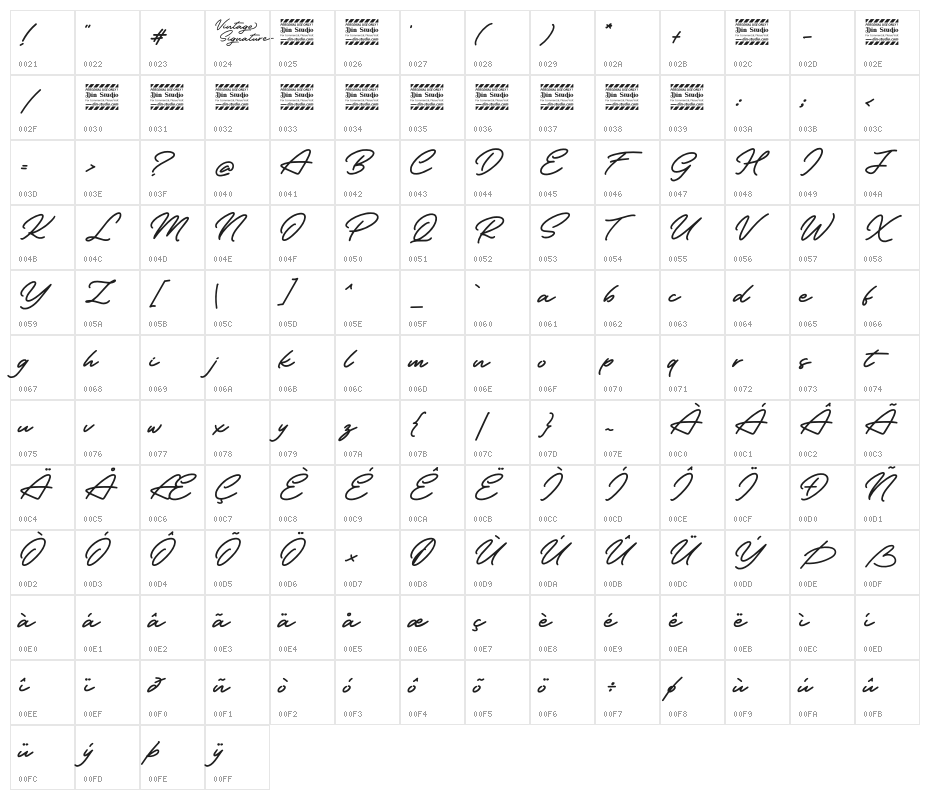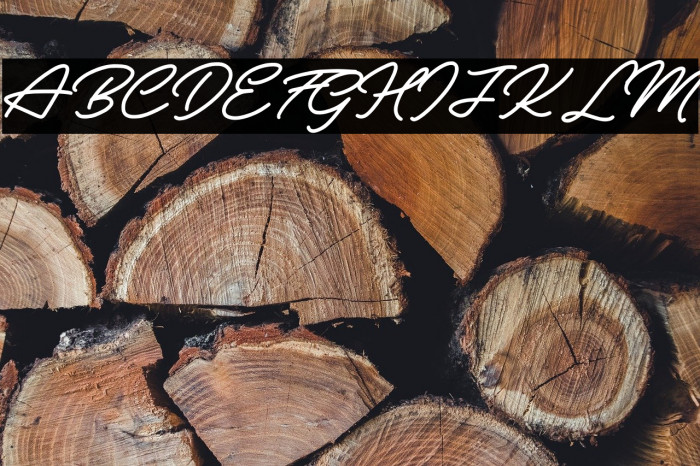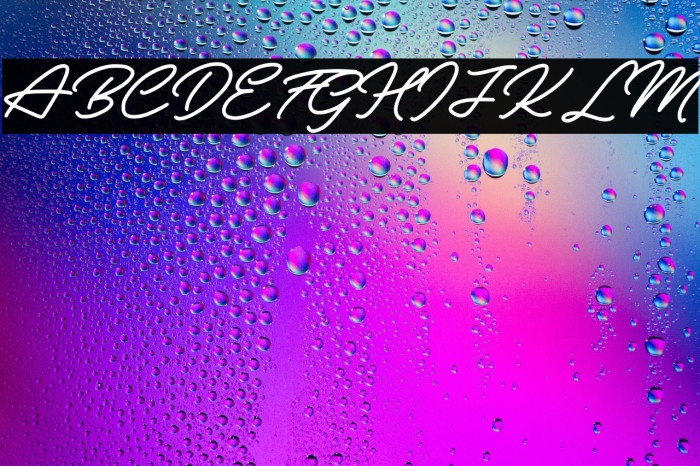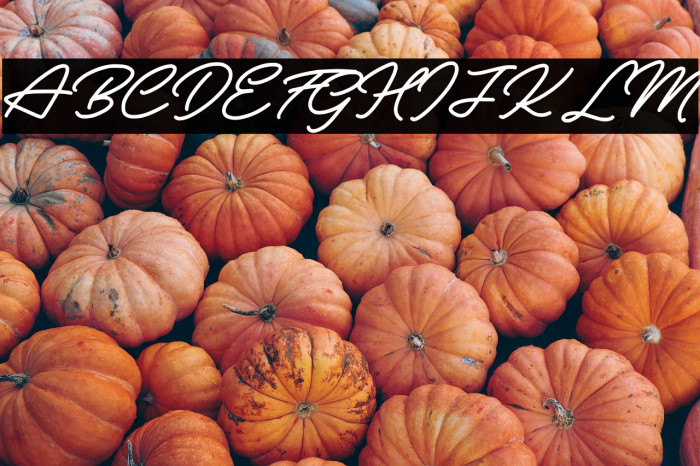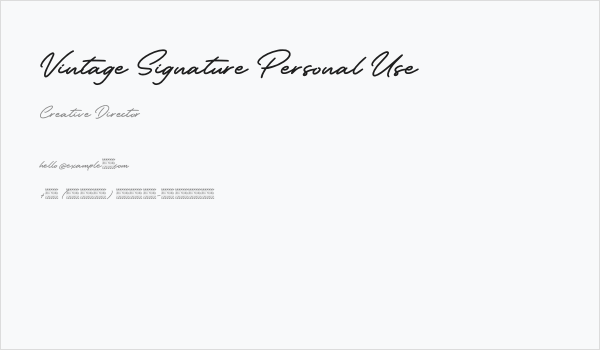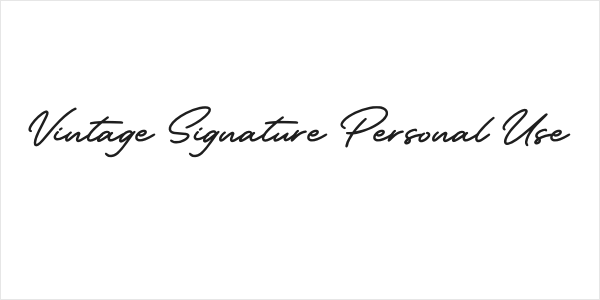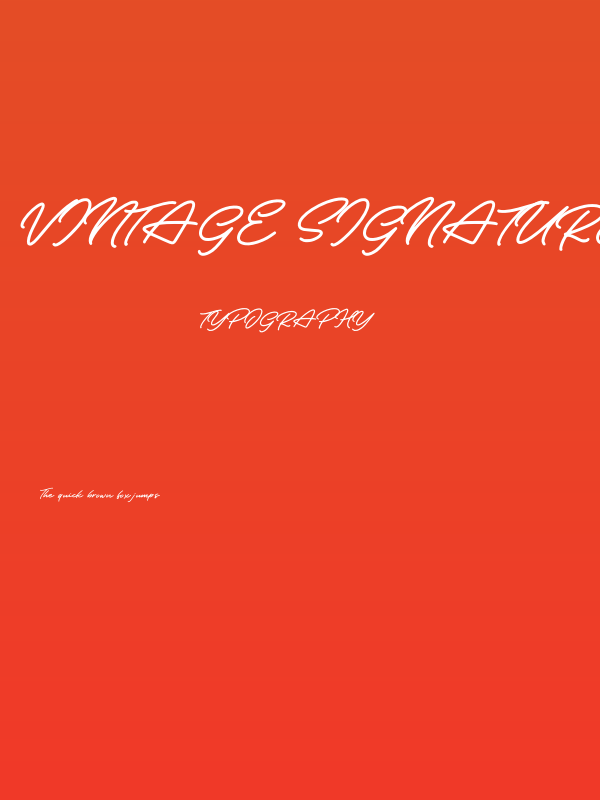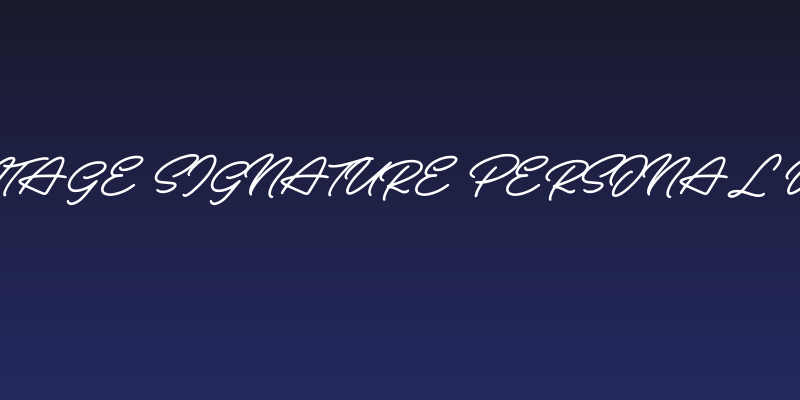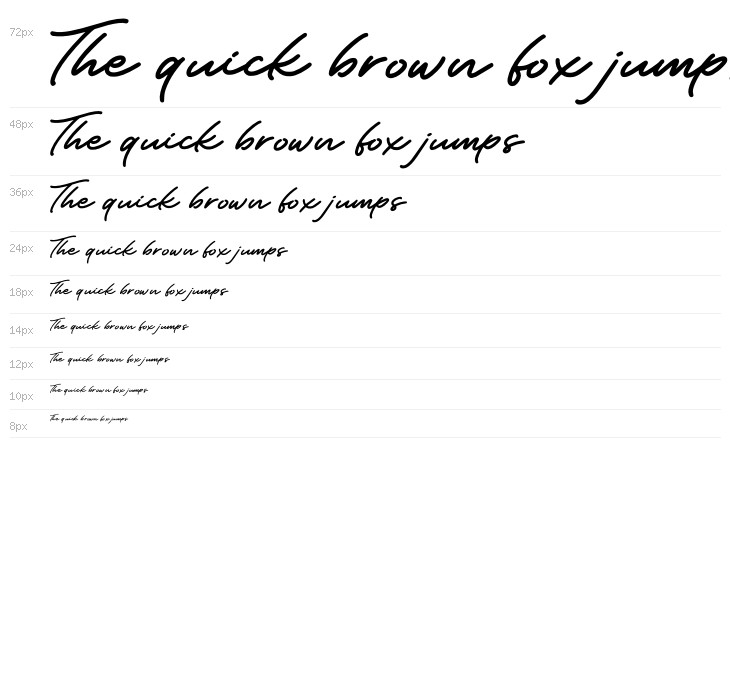
Vintage Signature Personal Use Font
Vintage Signature Personal Use Description
This font exudes a classic and elegant handwritten style, reminiscent of a vintage signature. The letters are gracefully connected, with smooth and flowing strokes that give it a personal and sophisticated touch. The uppercase letters are slightly more elaborate, featuring gentle curves and loops, while the lowercase letters maintain a consistent and harmonious flow. The overall appearance is both stylish and timeless, making it suitable for projects that require a touch of elegance and class. The font's design is perfect for creating a sense of personal touch and authenticity.
| Proposed Projects | Ideal for wedding invitations, personal branding, logo design, and elegant stationery. |